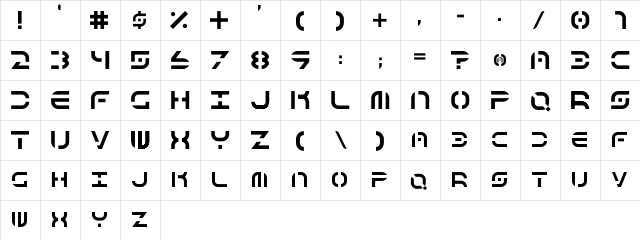
BASEv1 Regular
Design Context for BASEv1 Typeface
BASEv1 is a composed and adaptable typeface that performs quietly and consistently across a wide range of design contexts.